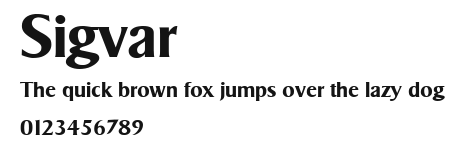
• Font Name: Sigvar
About Sigvar.ttf
Sigvar.ttf is a modern, elegant sans-serif font designed for ultimate readability and visual harmony. Perfect for branding, headlines, web design, and print materials.